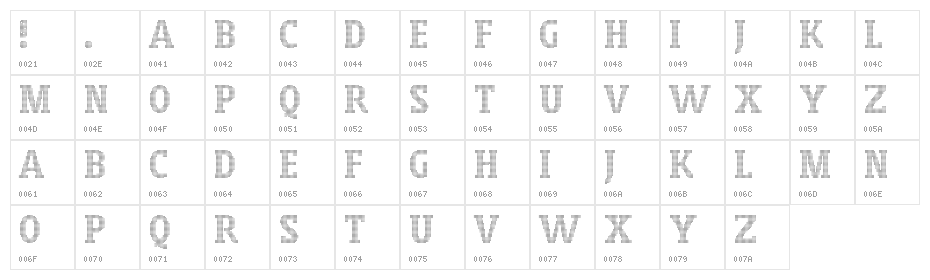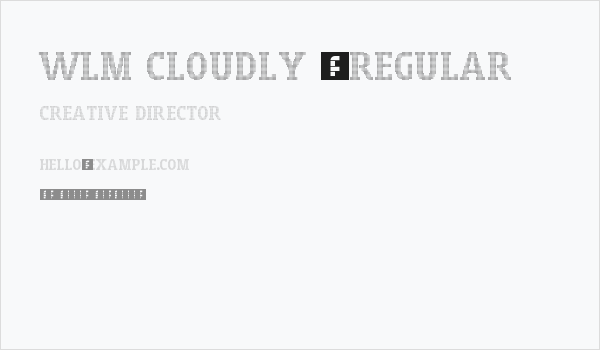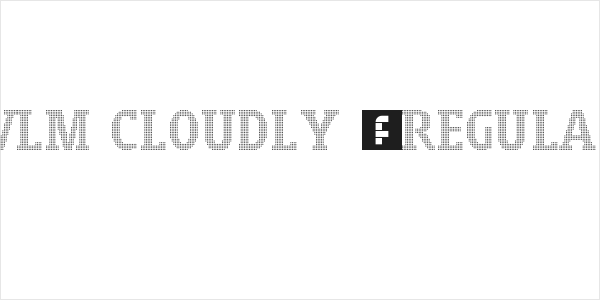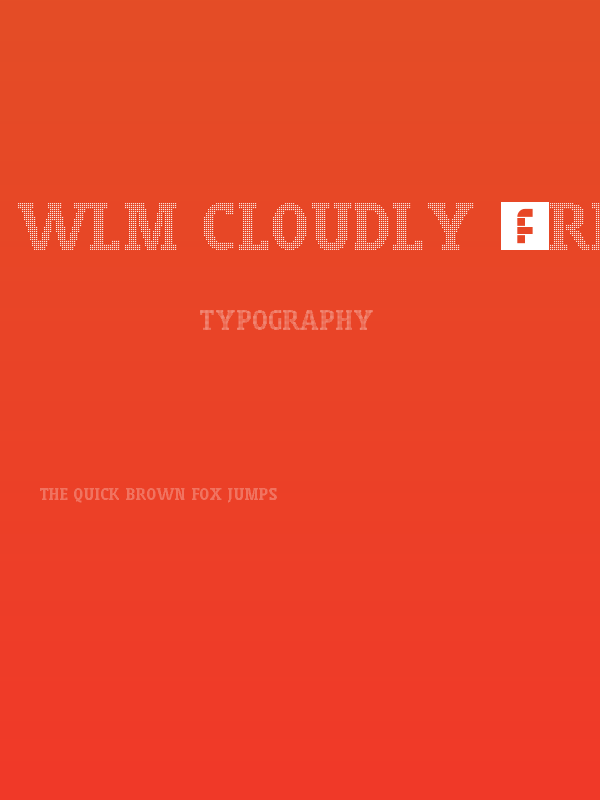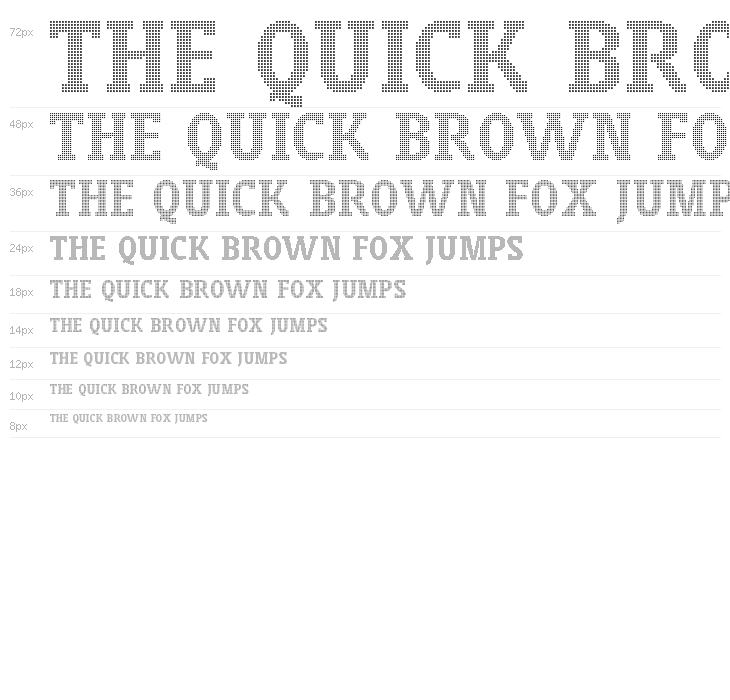
WLM Cloudly 3 Regular Font
WLM Cloudly 3 Regular Description
This font features a unique dotted pattern that forms each character, giving it a distinct and modern digital appearance. The uppercase letters are bold and structured, with a consistent grid-like formation that adds a sense of uniformity and precision. The lowercase letters maintain this pattern, ensuring readability while retaining the font's distinctive style. The numbers and special characters follow the same design principles, making them easily recognizable and cohesive with the overall aesthetic. This font's design is both innovative and eye-catching, making it suitable for projects that require a contemporary and tech-inspired look.
| Proposed Projects | Ideal for digital art, tech branding, modern posters, and innovative product packaging. |